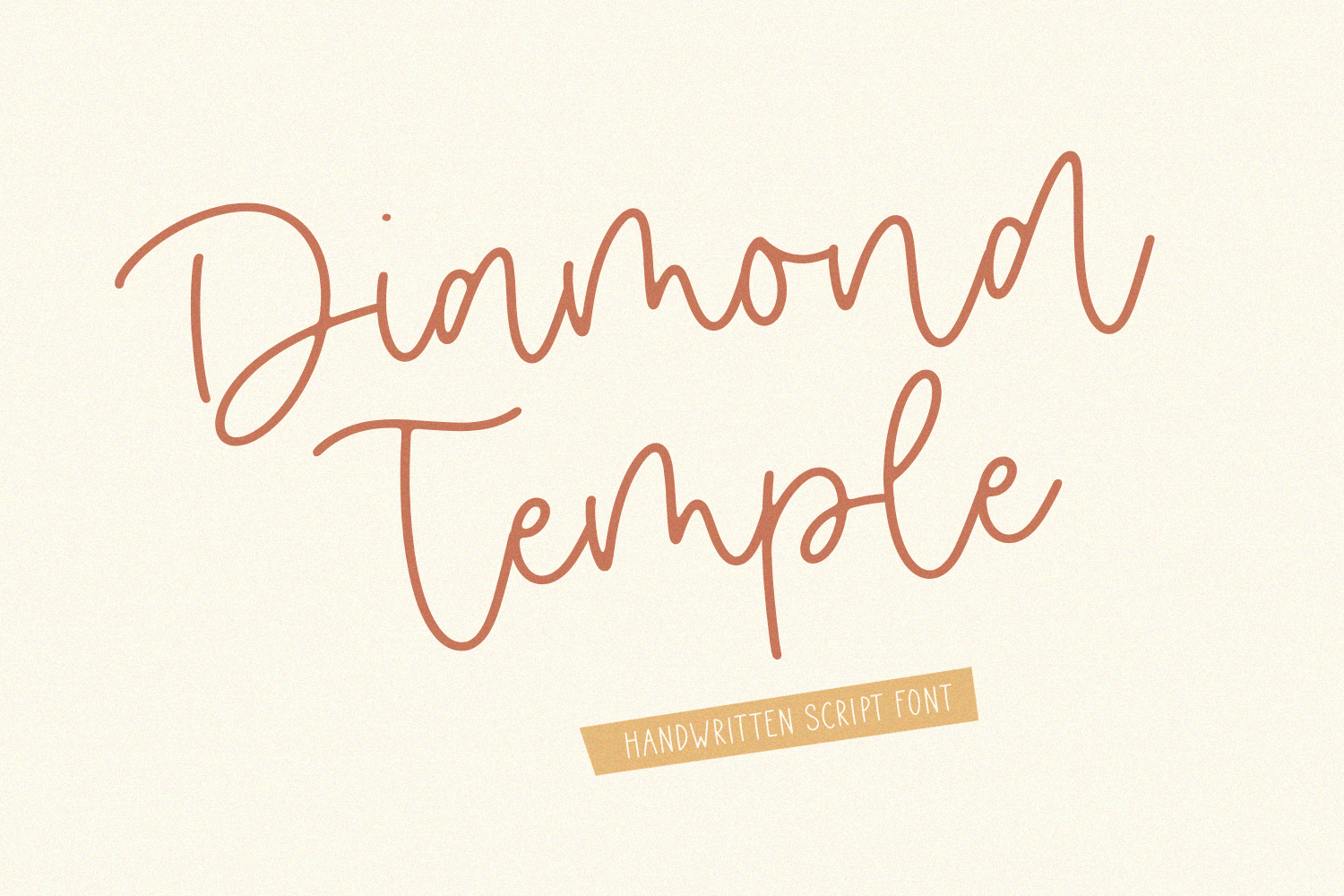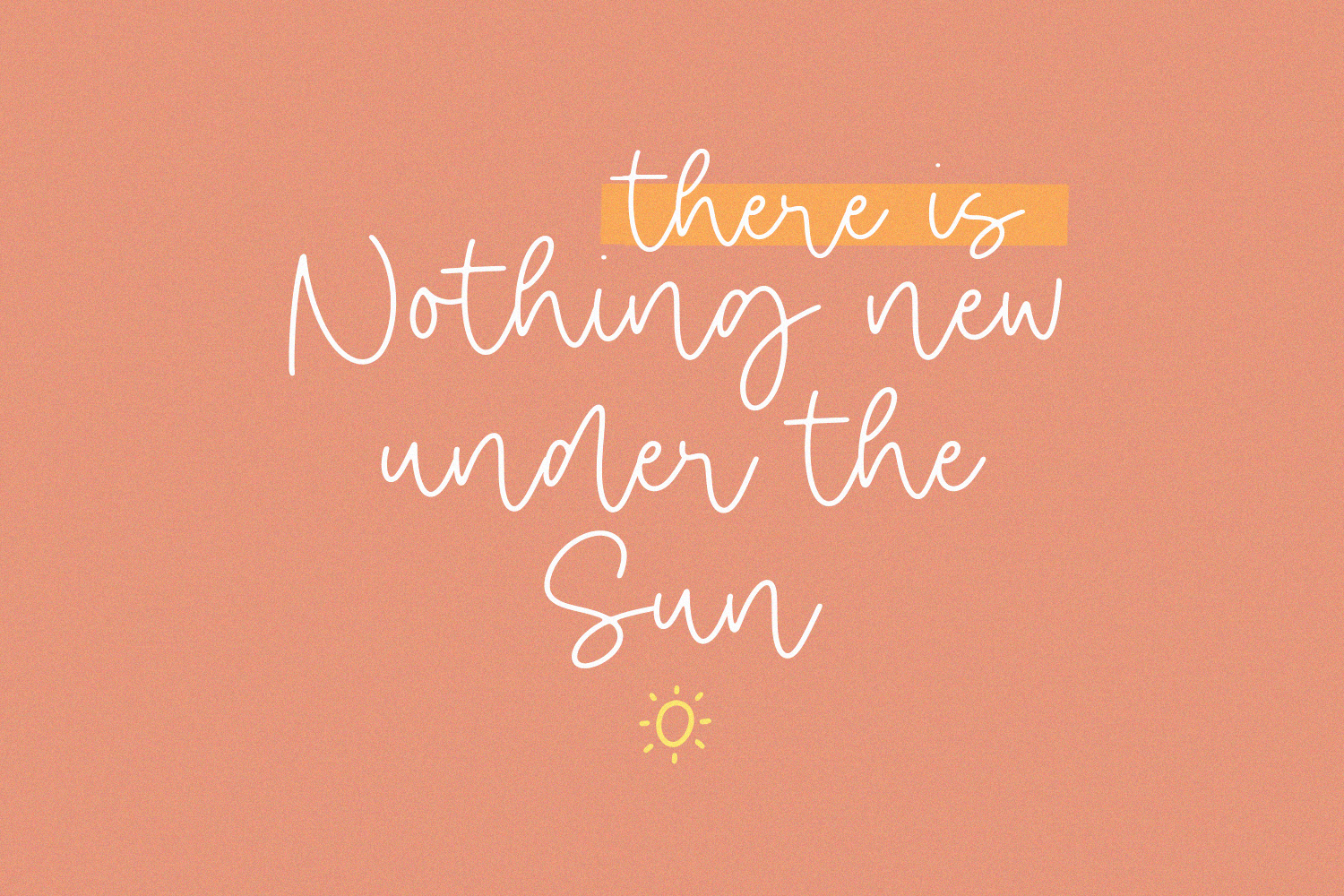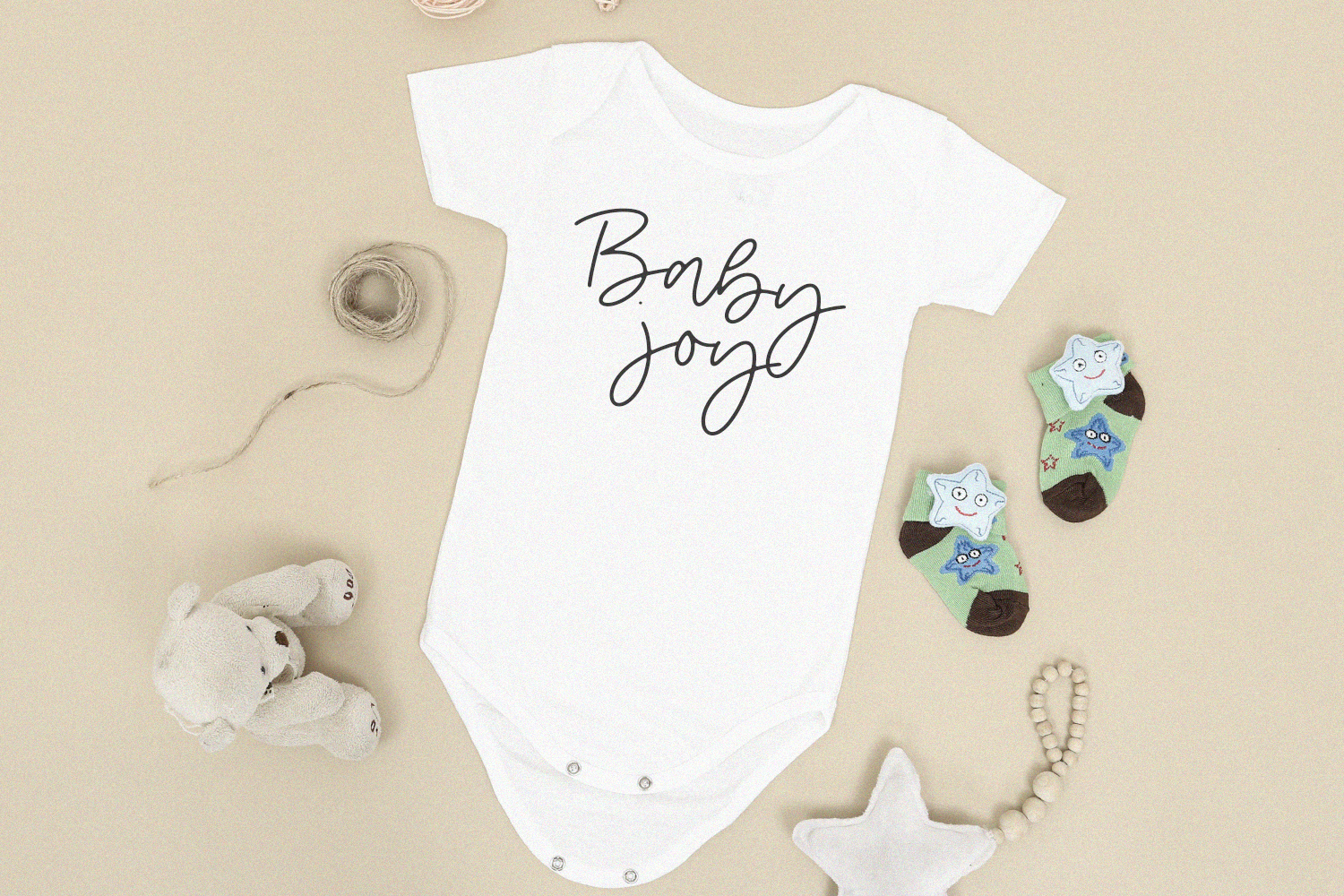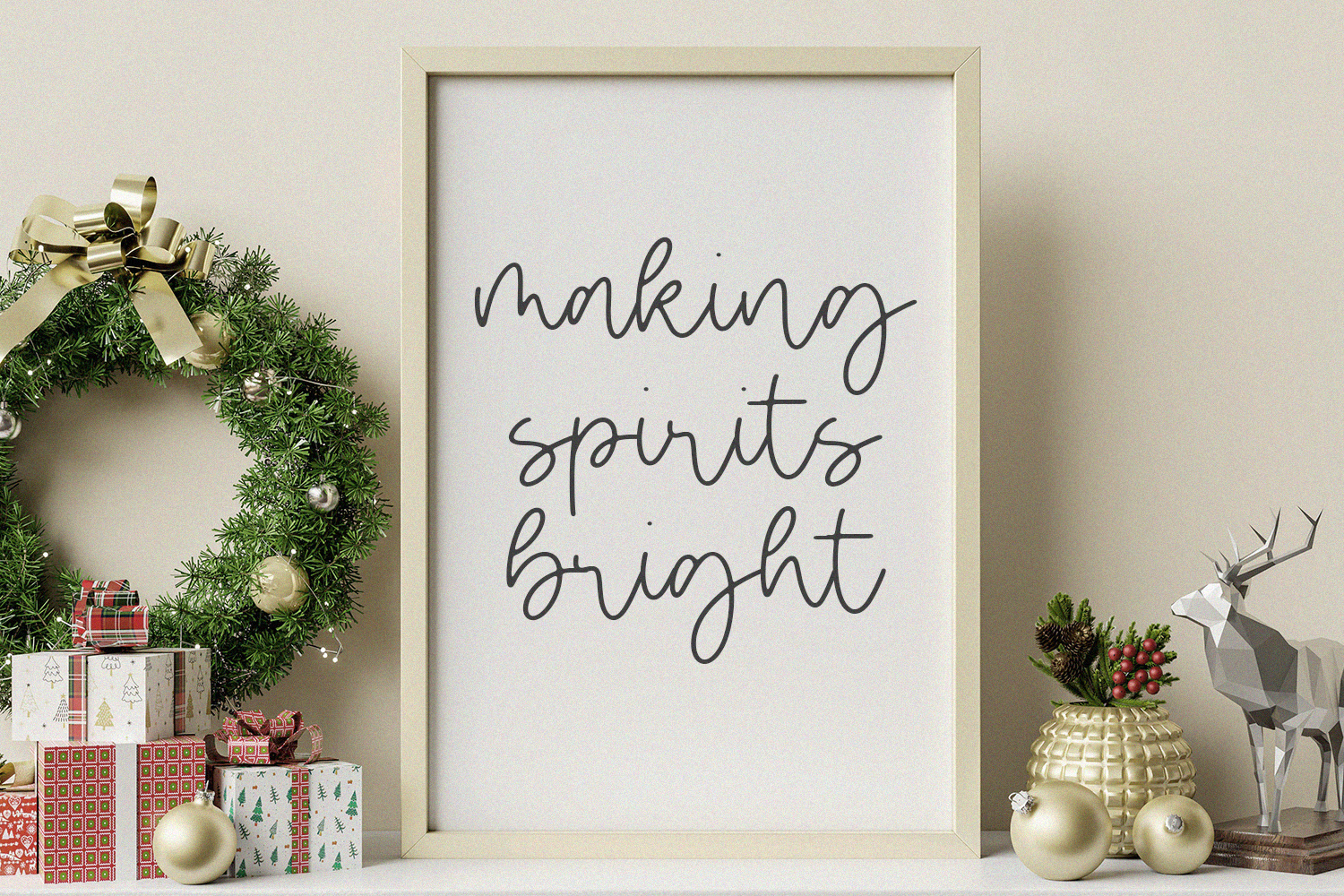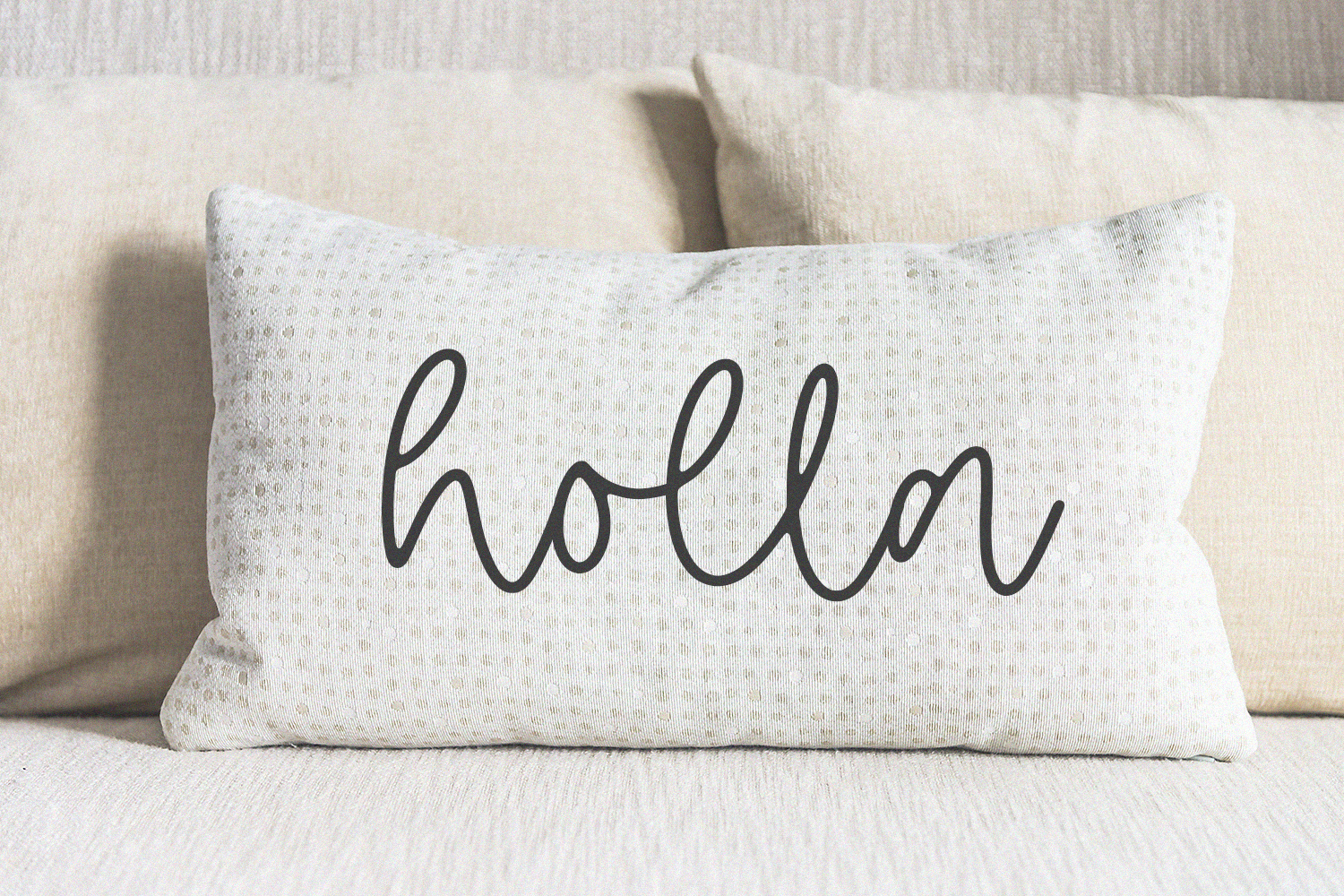
Diamond Temple Free Font
Diamond Temple Free Font is a charming and intimate typeface that exudes warmth and personality. Its handwritten letters, with their imperfections and variations, give the font a sense of authenticity and personal touch. The font’s informal and relaxed style makes it the perfect choice for projects that require a touch of emotion and creativity. Whether you’re creating a handwritten note, a personal blog post, or a greeting card, Diamond Temple Free Font will add a touch of warmth and emotion to your words, making them feel more personal and sincere. Its friendly and approachable style is sure to make a connection with your audience and leave a lasting impression.